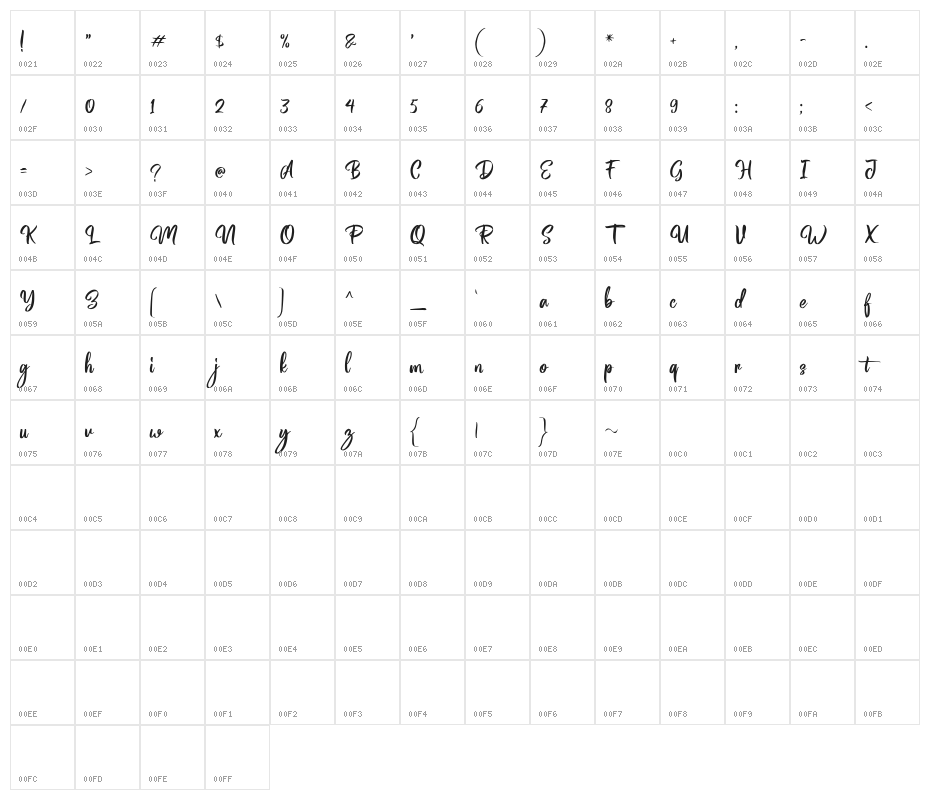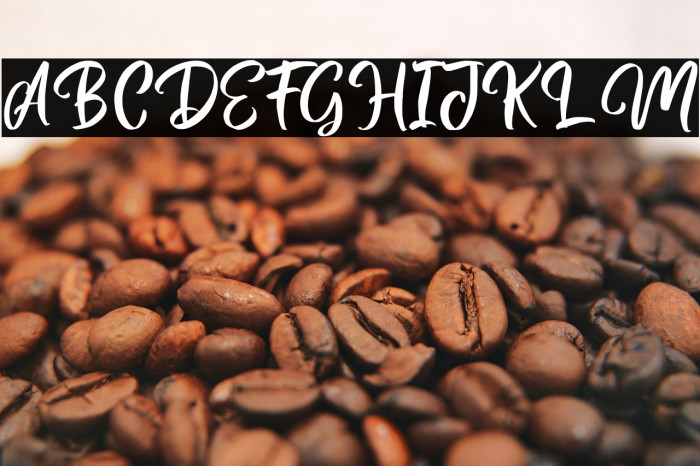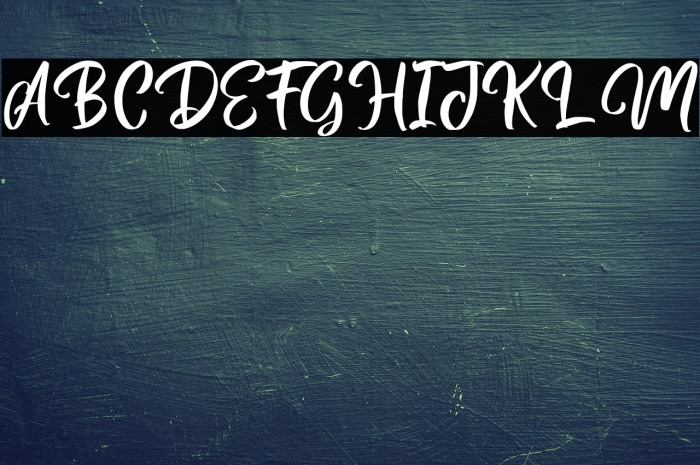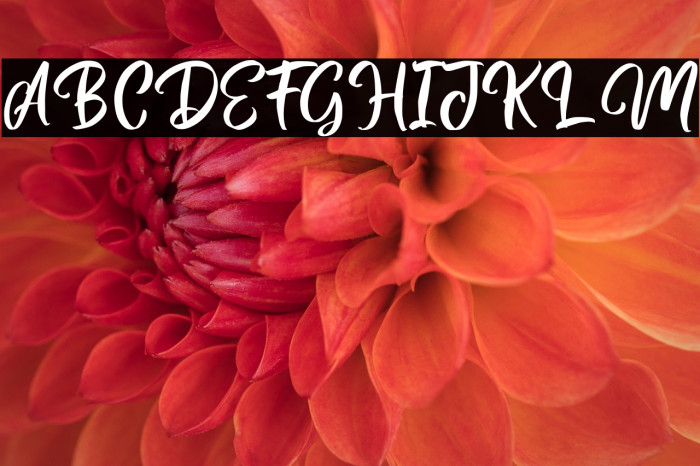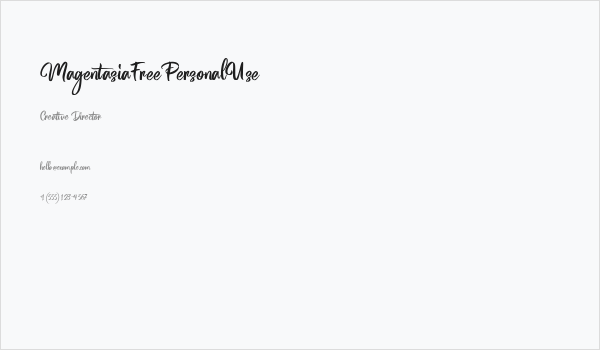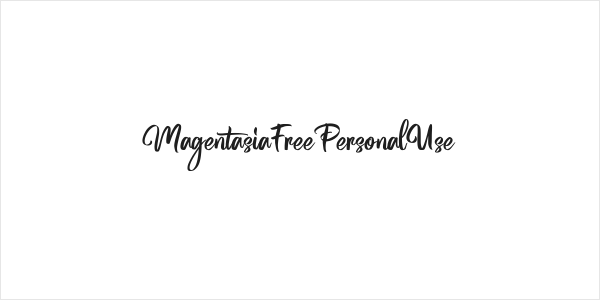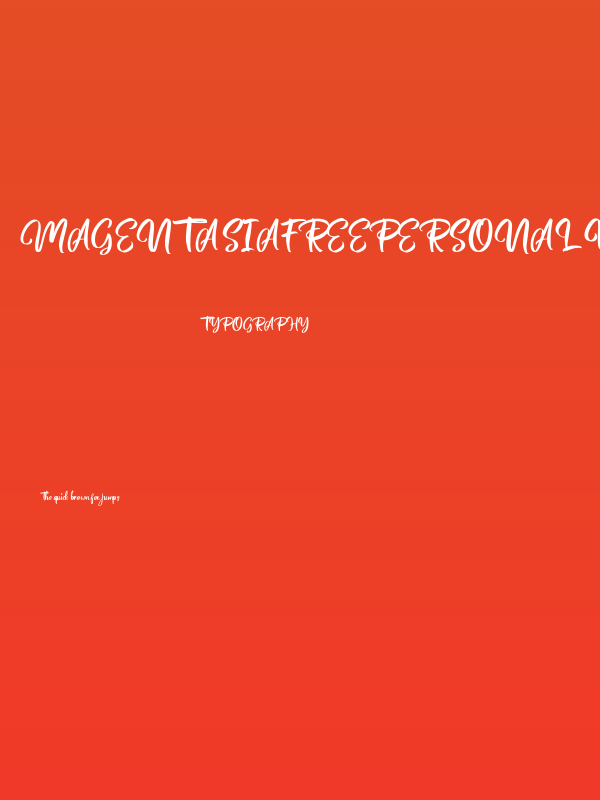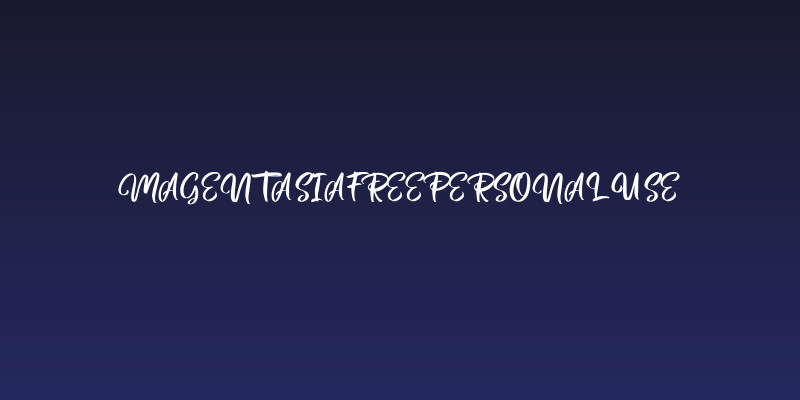
MagentasiaFreePersonalUse Font
MagentasiaFreePersonalUse Description
This font features a flowing, cursive style with elegant, sweeping curves and a handwritten aesthetic. The uppercase letters are bold and expressive, with distinctive loops and flourishes that give them a dynamic appearance. The lowercase letters maintain a consistent style, with smooth transitions and a slightly playful character. Numbers and special characters are designed to match the overall aesthetic, ensuring a cohesive look. The font's design is both artistic and legible, making it suitable for a variety of creative applications.
| Proposed Projects | Ideal for wedding invitations, greeting cards, branding projects, and decorative posters. |